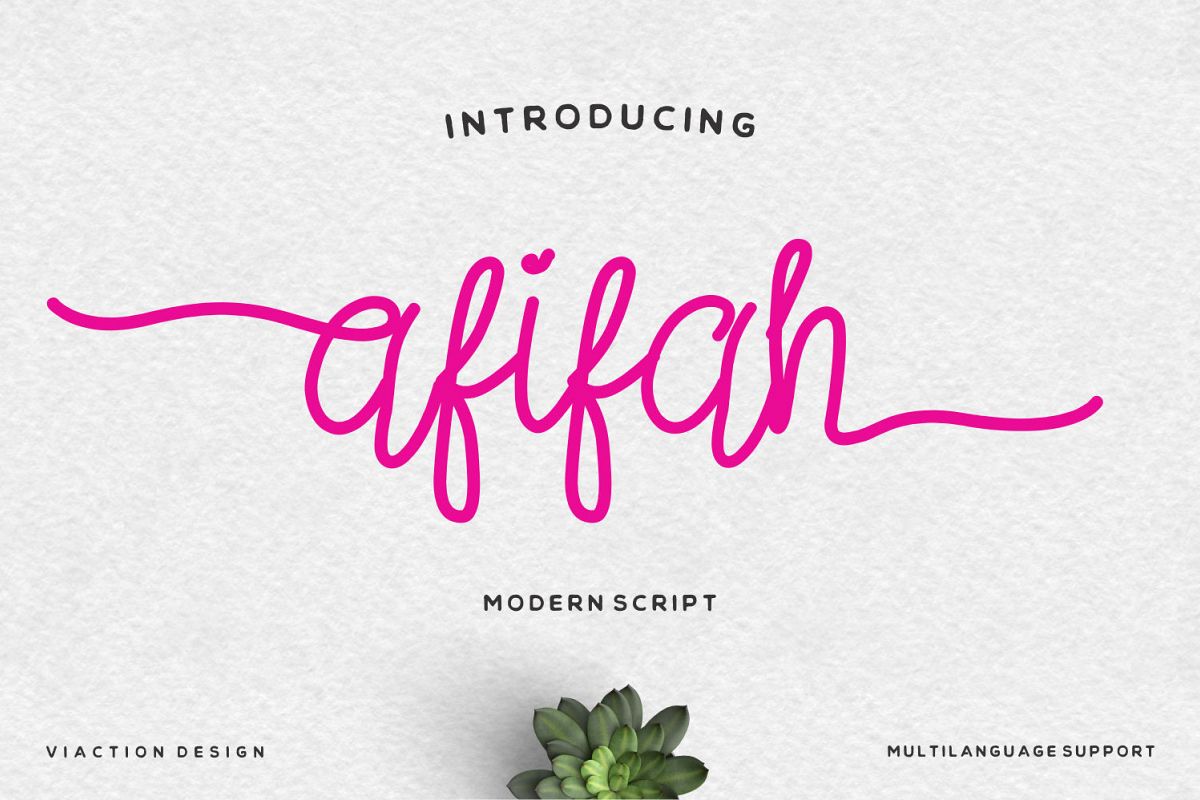
Afifah Script
Afifah Script font style original handwriting, nice applied in a variety of products. Complete with multi-language, ligature and alternative character. It is suitable for your design, clothing design, vintage logos, labels, posters, packaging design and other designs.Include File :